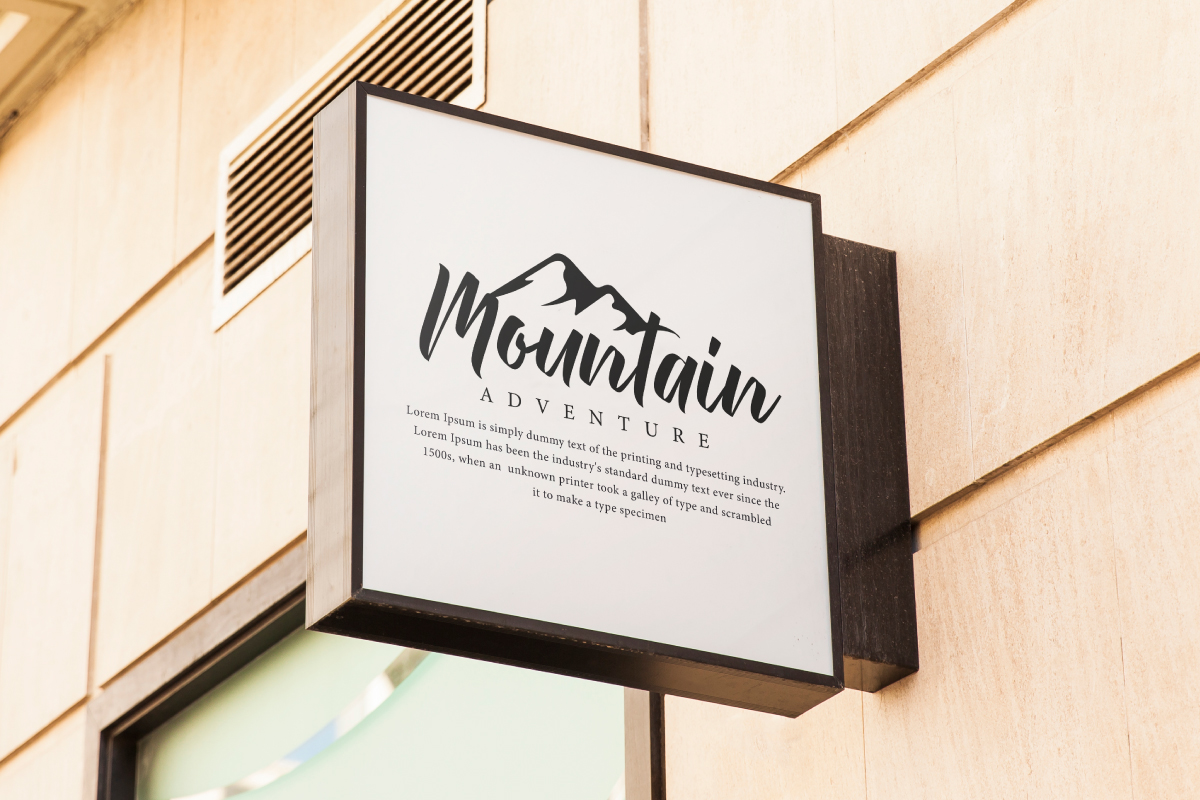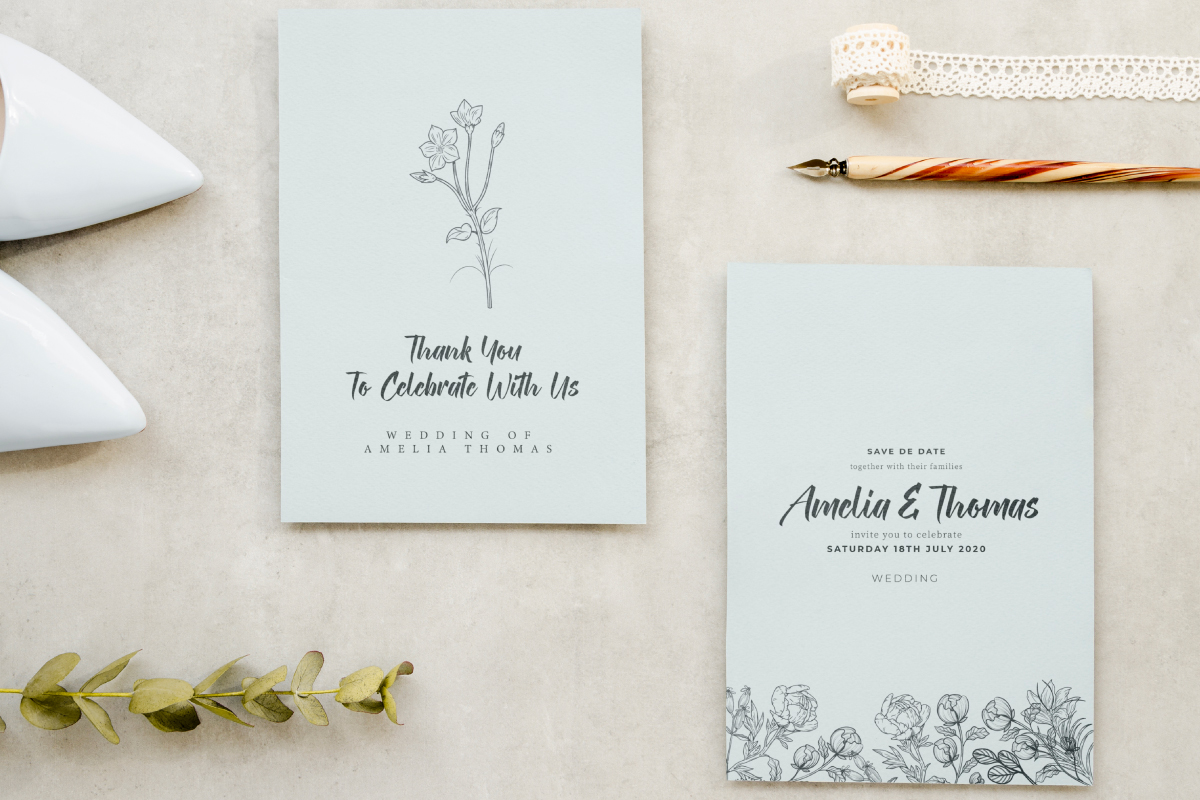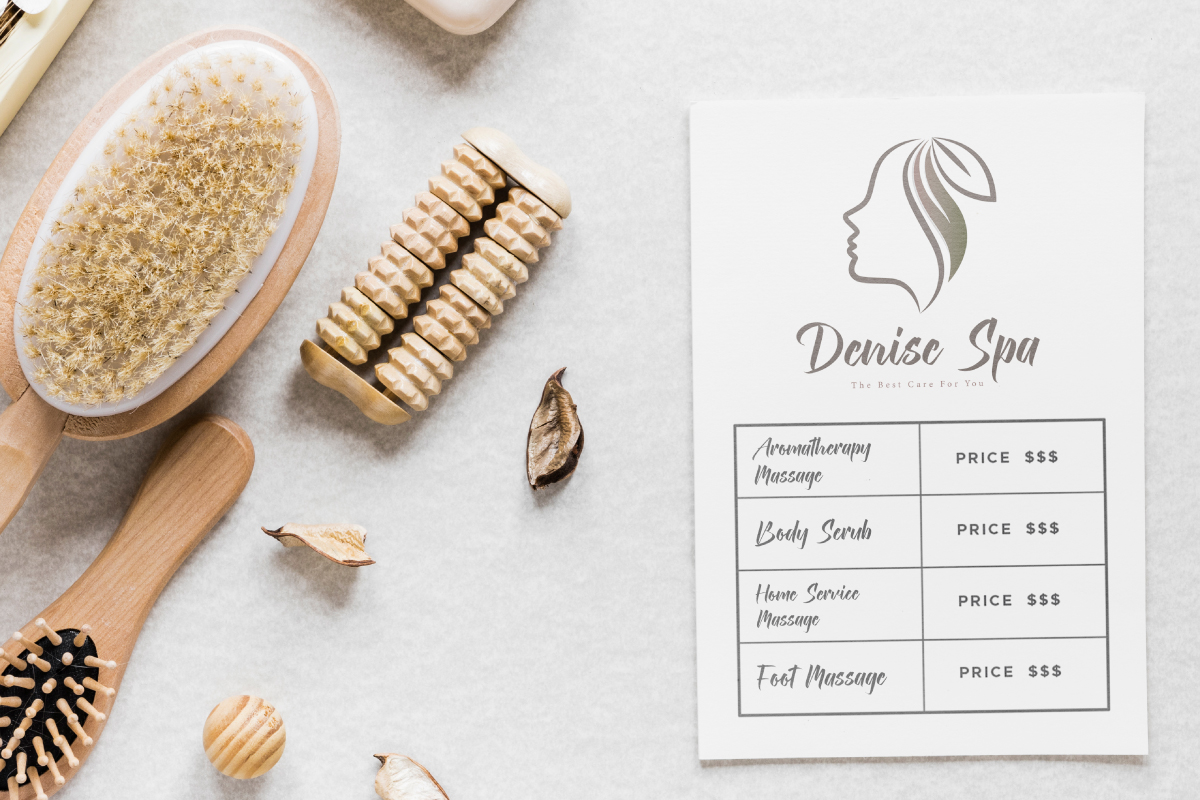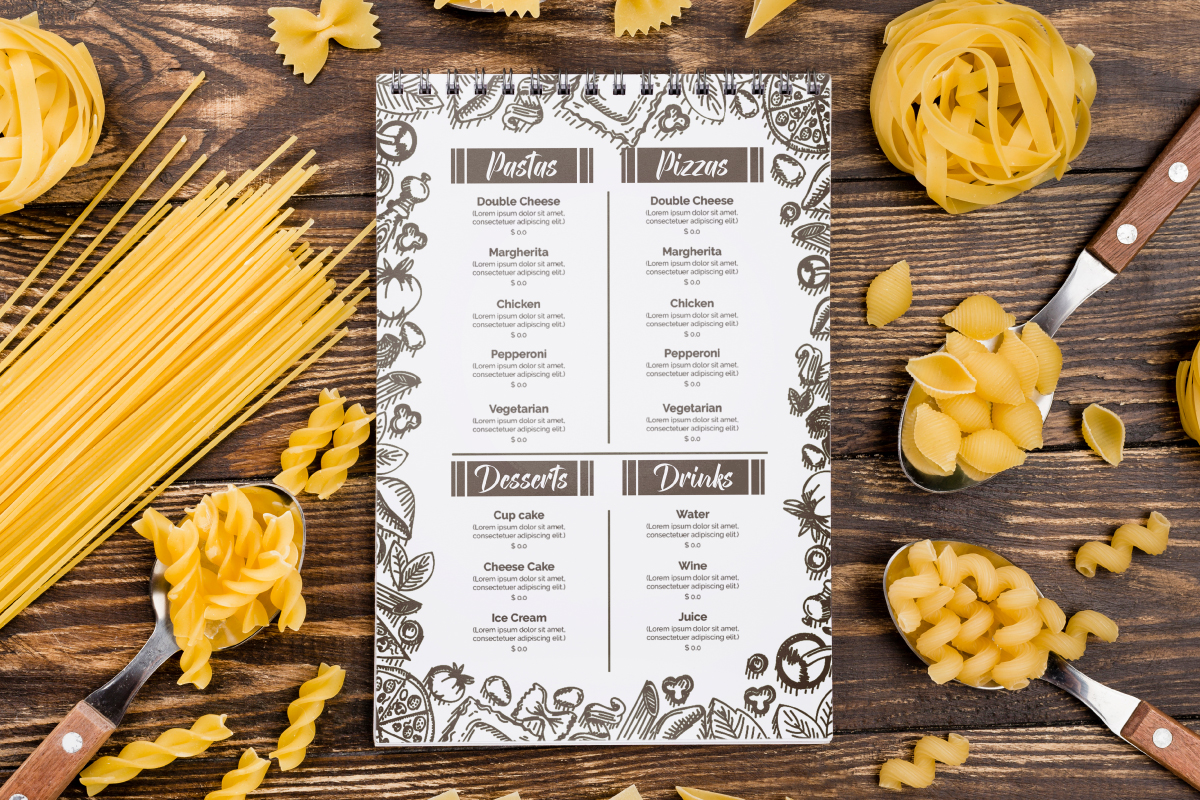
Mountanious Font
Mountanious Script Font
It’s a beautiful script font with calligraphy style. This font is specially made for those of you who want to add the essence of beauty to every design made. Use this font for your creative projects including : brand logo, brochure, catalog, headline, invitations, menu, signage, and more!